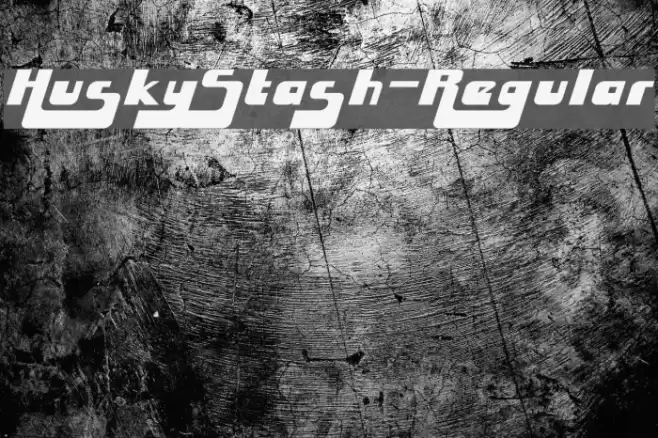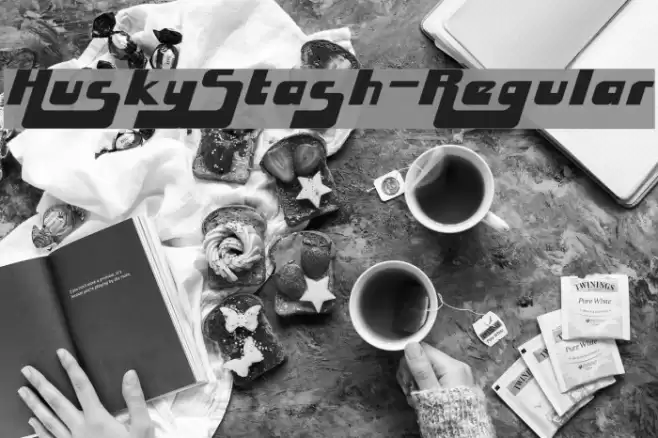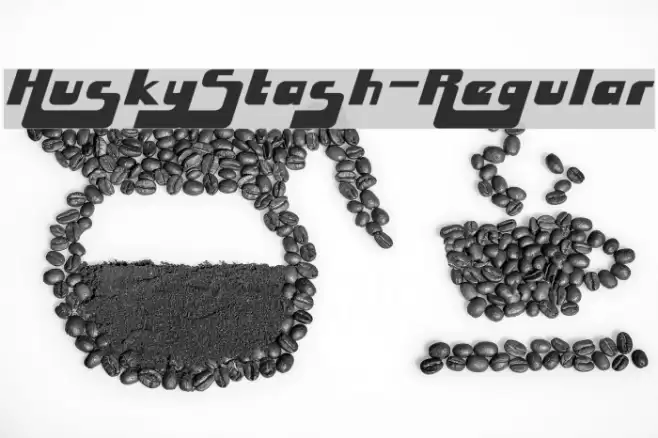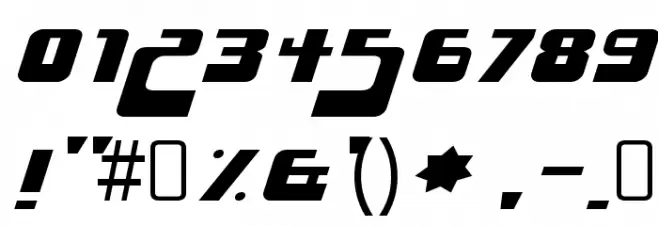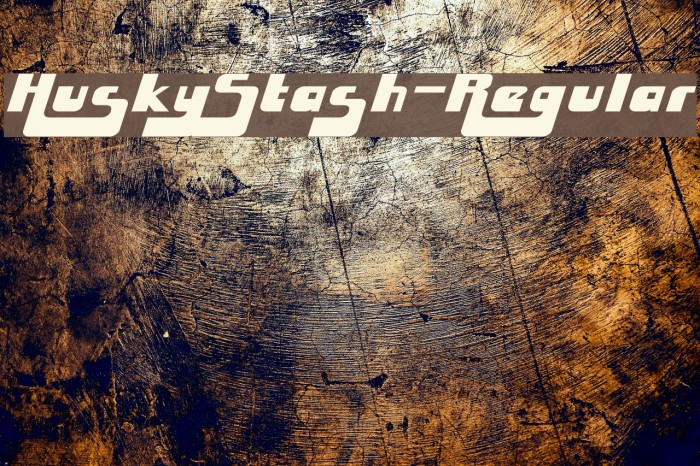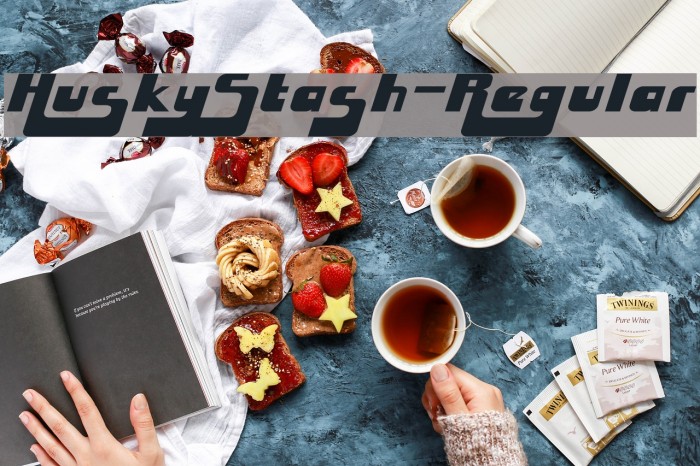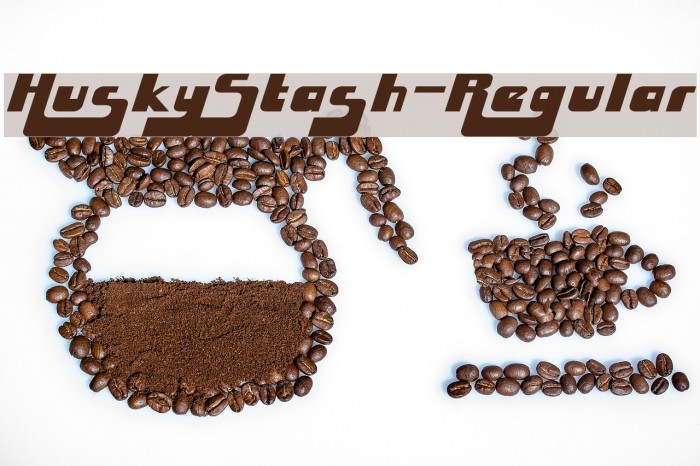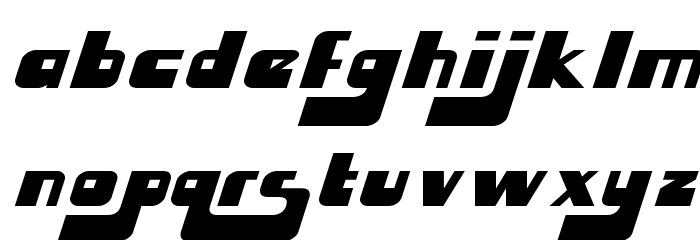
HuskyStash-Regular Font
HuskyStash-Regular Description
This font features a bold, modern design with a strong geometric influence. The characters are slightly slanted, giving a sense of motion and dynamism. The uppercase letters are bold and wide, with sharp angles and clean lines, while the lowercase letters maintain a consistent style with a slightly more compact form. The numerals are distinct and easily readable, following the same bold and angular style. Special characters are well-integrated, maintaining the overall aesthetic. The font's design is ideal for projects that require a contemporary and impactful look.
A bold, modern font with geometric and dynamic characteristics from Uncategorized fonts.
- Proposed Projects: Ideal for branding, advertising, sports team logos, and modern digital interfaces.
- Width: Expanded
- Use Case: Logos, Headlines